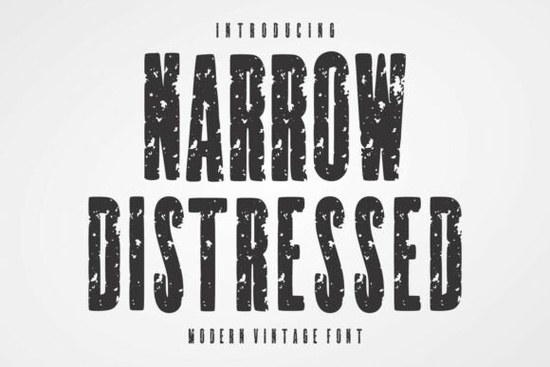
If you're looking for a bold, vintage-style font that stands out without losing clarity, Narrow Distressed is a solid choice for designers and creatives across many industries. It’s not just another retro typeface it’s built to feel authentic, with a weathered texture that mimics real-world wear on signs, posters, and packaging. Whether you’re working on branding, merch designs, or social media graphics, this font delivers a handcrafted look that still feels professional.
What Makes Narrow Distressed Stand Out?
Unlike many fonts that lean too hard into nostalgia, Narrow Distressed balances rugged charm with clean structure. The narrow, tall letterforms create strong visual impact perfect when space is limited but you still want your message to grab attention. Think of it as the go-to option for western-themed projects, craft brewery labels, coffee shop branding, or adventure gear designs.
The distressed effect isn’t just a filter it’s thoughtfully designed into each character. You’ll notice subtle texture variations that give the font depth, like faded edges and light wear marks, all while keeping the letters readable at small sizes. This makes it ideal for everything from t-shirt prints to product packaging.
Best Uses for Narrow Distressed
- Logos and brand identities for rustic, outdoor, or vintage-inspired businesses
- Posters and flyers with a retro or industrial vibe
- Merchandise like stickers, tote bags, and apparel
- Packaging design for craft goods, coffee, beer, or handmade soaps
- Social media content where bold, eye-catching text matters
- Signage for bars, salons, or retail spaces with a vintage feel
You can use it for headlines, taglines, or even full-body text in layouts where a strong personality is needed. Because it’s condensed, you fit more words in less space great for small labels or tight design areas.
How It Fits Into Your Design Workflow
It pairs well with simpler fonts to balance the drama. For example, try combining it with a clean sans-serif like Ortico or Baserona for a modern contrast. Or layer it over textured backgrounds to enhance the worn-in look without extra editing.
When You Might Want to Explore Alternatives
If you’re after something even more dramatic or stylized, consider fonts like Espresso for a coffeehouse theme, or Spartach for a bolder, grungier edge. For a softer vintage touch, Biyonix adds a refined, hand-drawn quality. Each brings its own flavor, so testing them side by side helps find the right match for your project.
Final Thoughts: Is It Worth Adding to Your Library?
If you work with vintage themes, outdoor brands, or creative products, this font adds instant character. It’s not flashy, but it’s dependable delivering consistent results across different formats and sizes. It’s especially useful if you’re designing for print-on-demand platforms, where unique typography can set your products apart.
While it’s not suitable for long blocks of body text, its strength lies in short, impactful phrases. Use it where emotion and identity matter like a barbershop name, a brewery logo, or a festival poster and you’ll see how much it elevates the overall feel.